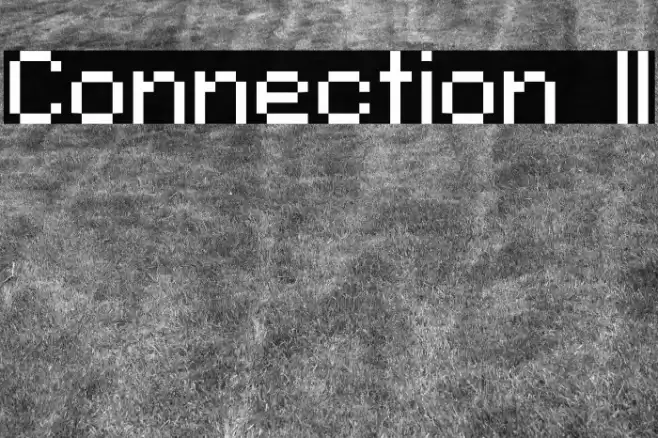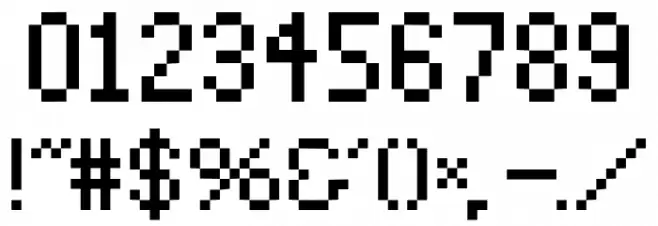
Connection II Font
Connection II Description
This font features a pixelated, blocky design reminiscent of early digital displays and retro video games. Each character is constructed with a grid-like precision, giving it a distinctly digital and geometric appearance. The uniformity in stroke width across all characters contributes to a cohesive and structured look. The uppercase and lowercase letters maintain a consistent height, enhancing readability while preserving the font's unique style. Numbers and special characters are crafted with the same pixelated approach, ensuring a seamless integration with the alphabetic characters. This font's nostalgic aesthetic is ideal for projects that aim to evoke a sense of retro digital culture.
A pixelated, blocky font with a retro digital aesthetic from Regular fonts.
- Overall Style: Retro, Digital
- Use Case: Headlines, Logos, Digital Art